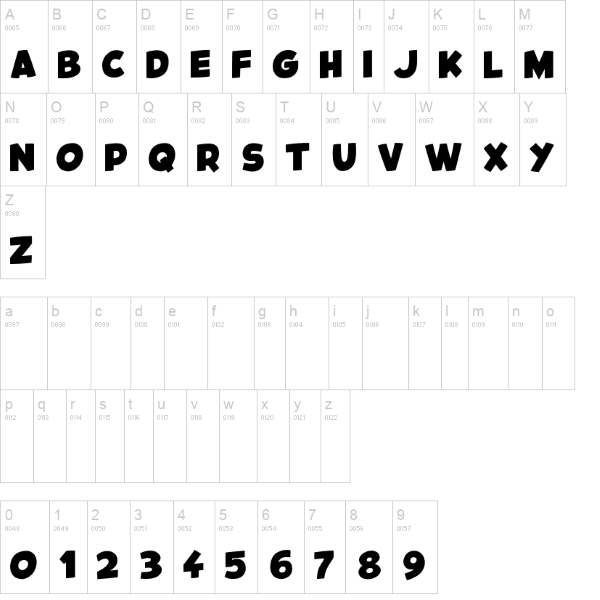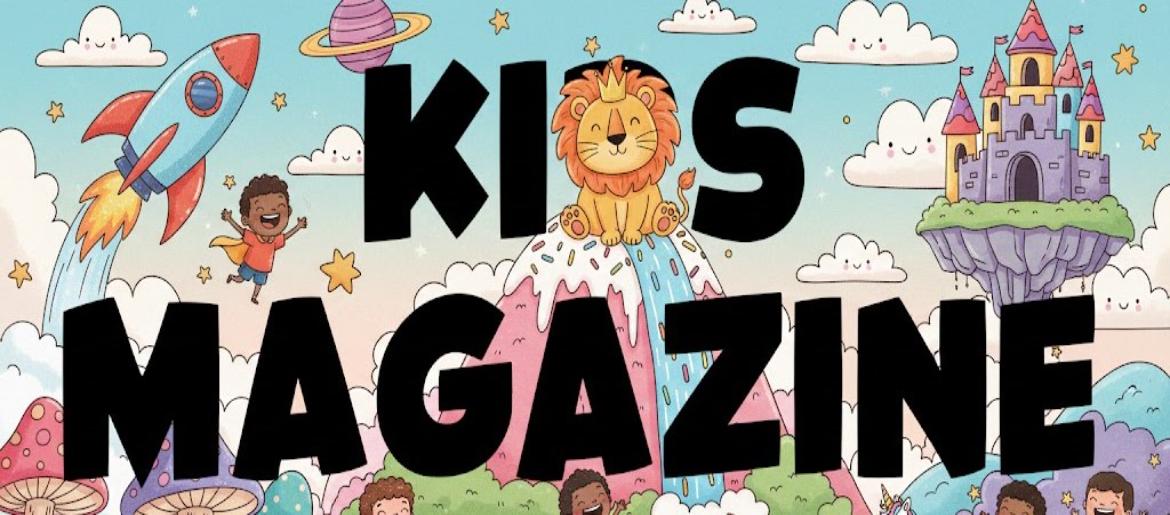
Kids Magazine Font
Kids Magazine Font is a playful display typeface created to capture fun, creativity, and youthful energy. With bold shapes and friendly letterforms, it’s perfect for children’s magazines, posters, educational materials, book covers, and branding. This font delivers strong readability while adding a colorful, cheerful personality that keeps designs lively and engaging.
➤ Font Name: Kids Magazine
➤ Designer: Imagex
➤ Style: Comic